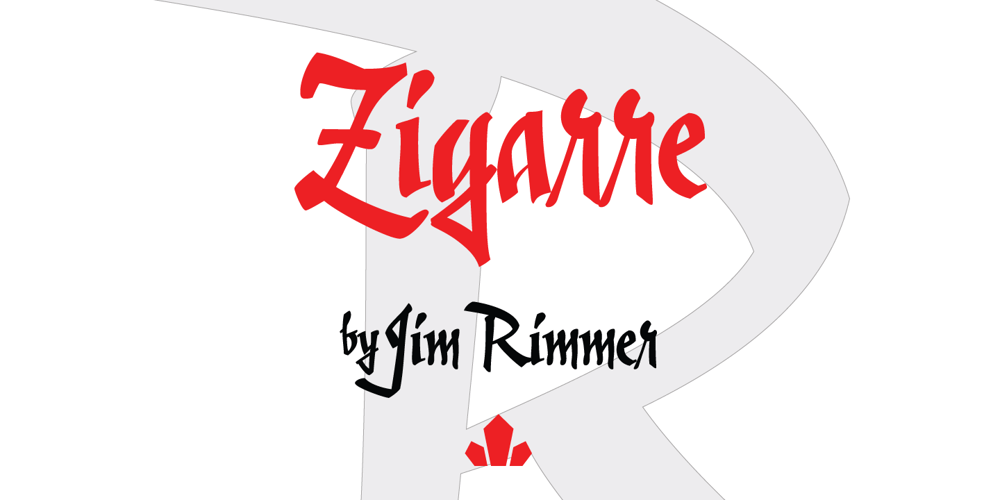
Zigarre
Zigarre font
Zigarre Font Family was designed by Jim Rimmer and published by Canada Type. Zigarre contains 2 styles and family package options. Though Zigarre can easily be categorized a brush script, Jim Rimmer actually drew it using a big marker. Jim’s original face, inspired by inter-war German poster lettering, was a rough one, with the marker’s juicy ink roughing it out all over the place. The smooth version, Zigarre Script, was produced as part of a major update and remastering the design underwent in 2012. Both Zigarre Script and Zigarre Rough come with extended Latin language support, as well as a few built-in stylistic alternates. 20% of this font’s revenues will be donated to a GDC scholarship fund, supporting higher typography education in Canada.